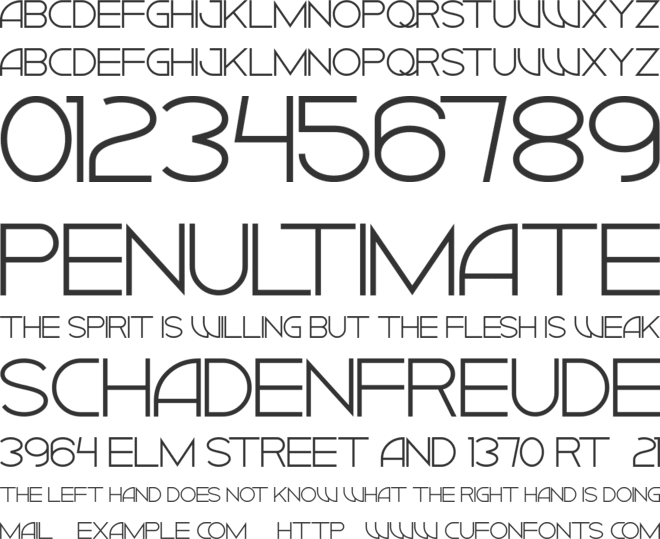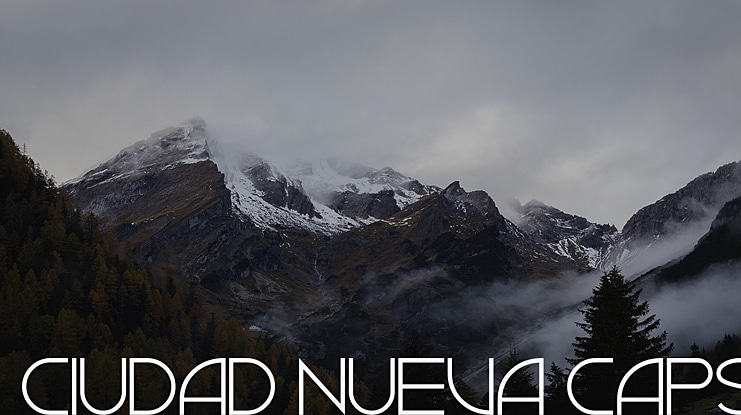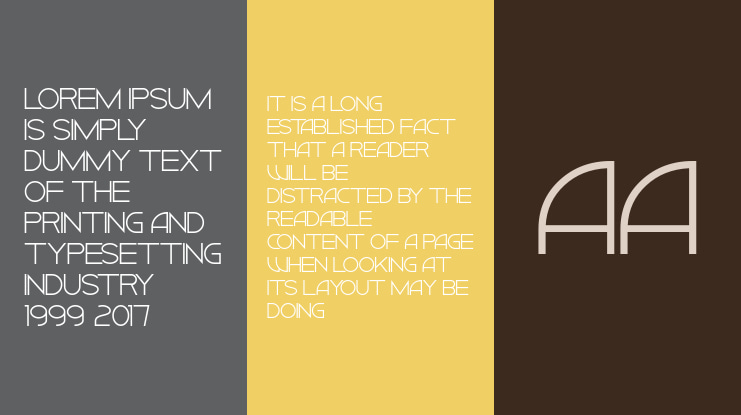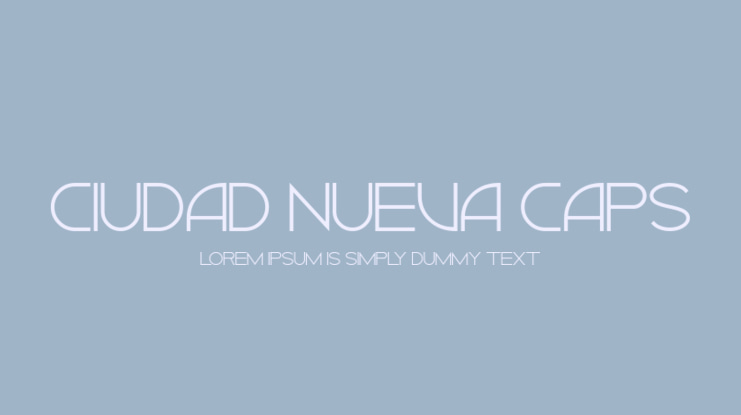
Ciudad Nueva CAPS Font Family
Due to alot of positive feedback I have updated la Ciudad Nueva. In addition to creating a Bold version, I have also made a nicer K and Y, changed the number set, and adjusted the kerning.
I am currently working on creating a lower case, and making symbols and accents, basically completing the font.
I was walking through the mall today after dropping my wife off at work and I saw an advertisement for makeup. I thought about the advertisement on the way home, and then I created this font. It's a classy and stylish number and letter set. It's kind of bold and edgy, like Johnny Cash covering your song and singing it better than you did. I can see it being used for Ad Copy, or maybe a nice Logo? Why don't you just download it and have your own way with it?